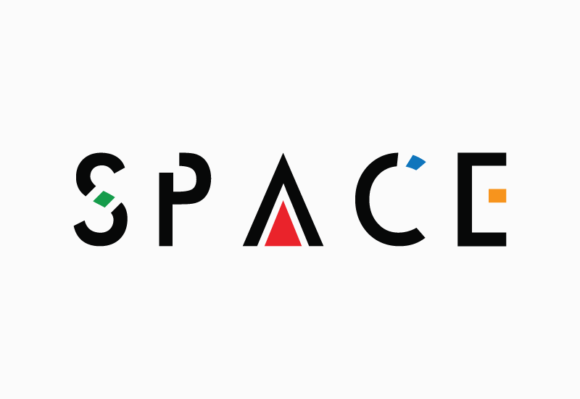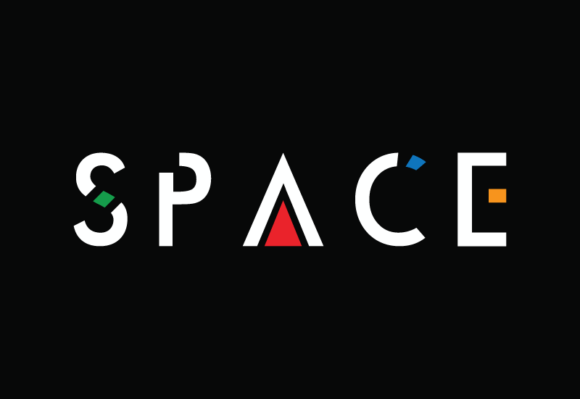
Space Font
Space is a cool and modern sans-serif font. Add it confidently to your creative projects and notice how it makes them stand out from the crowd. Seamlessly infuse this stylish typeface into your creations and observe how effortlessly it elevates them above the competition. Add it confidently to your creative projects and notice how it makes them stand out from the crowd.